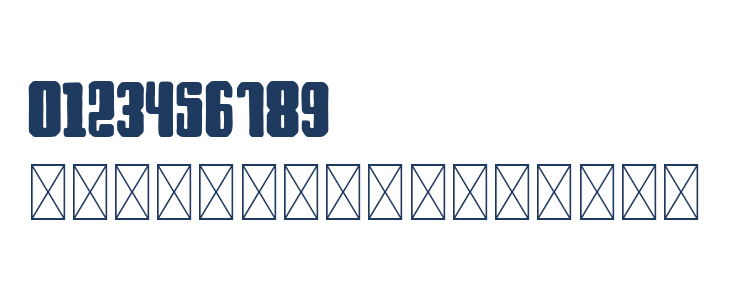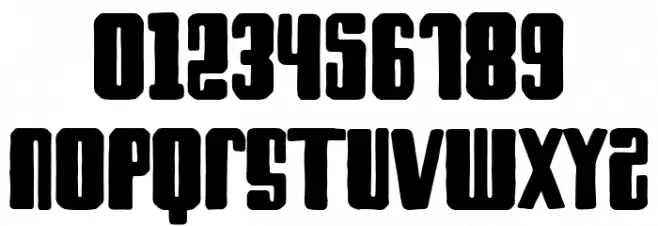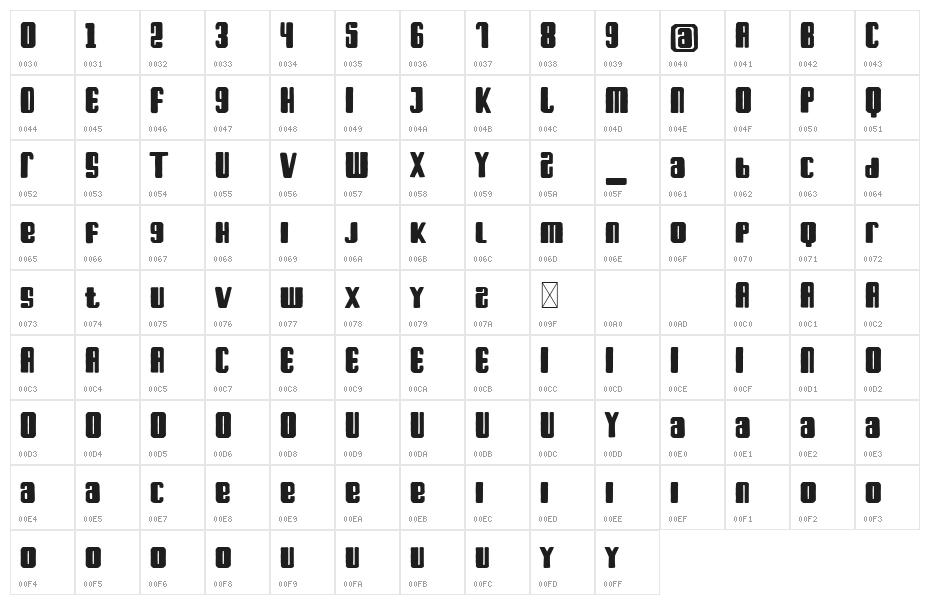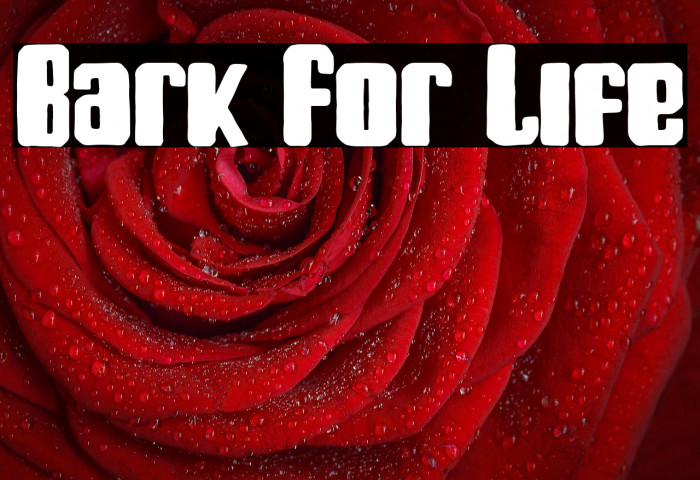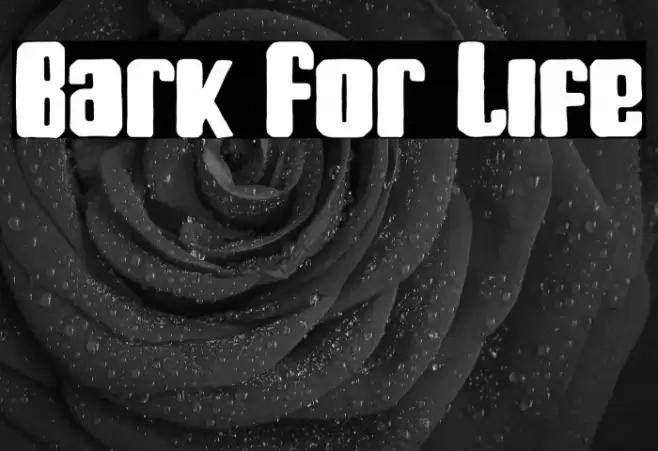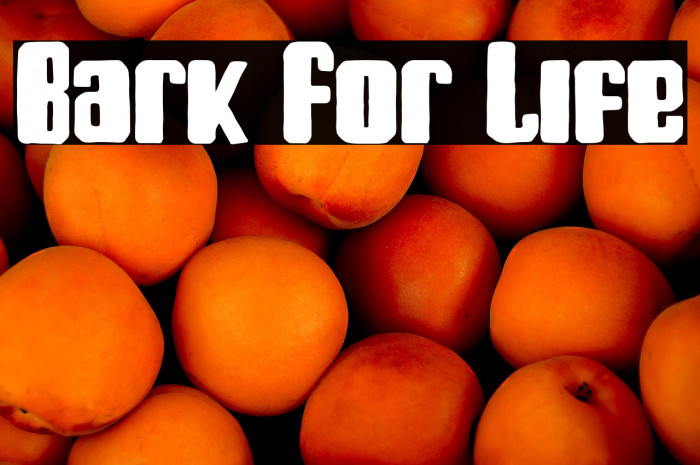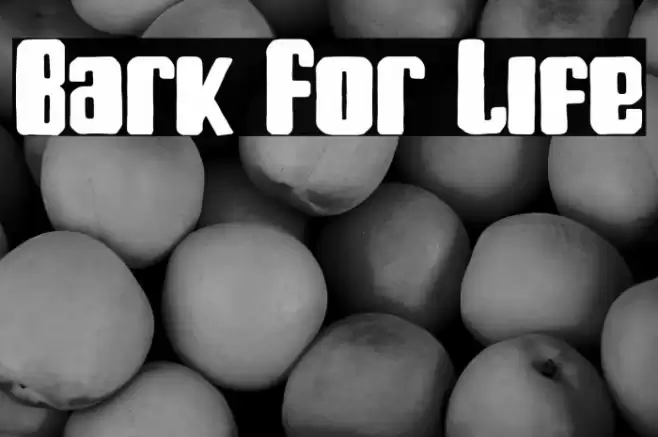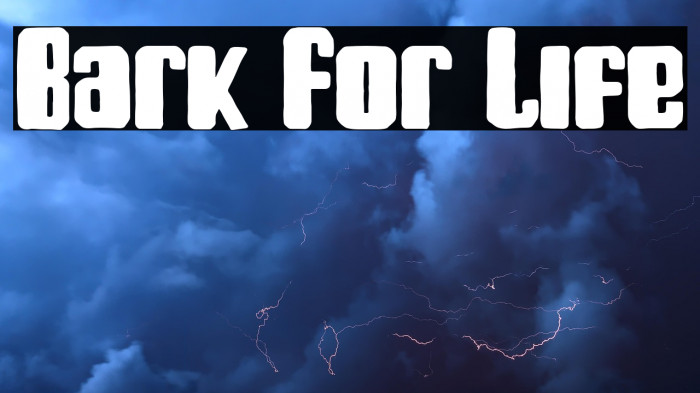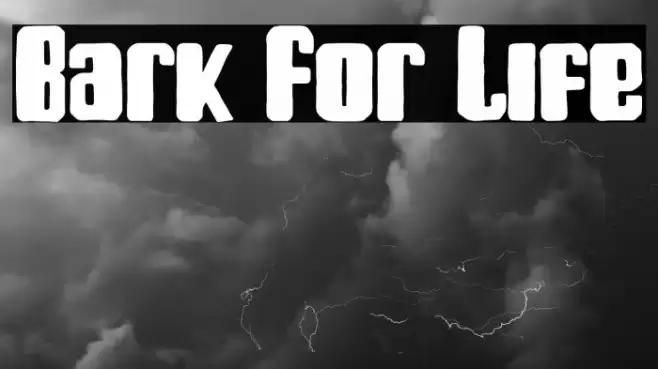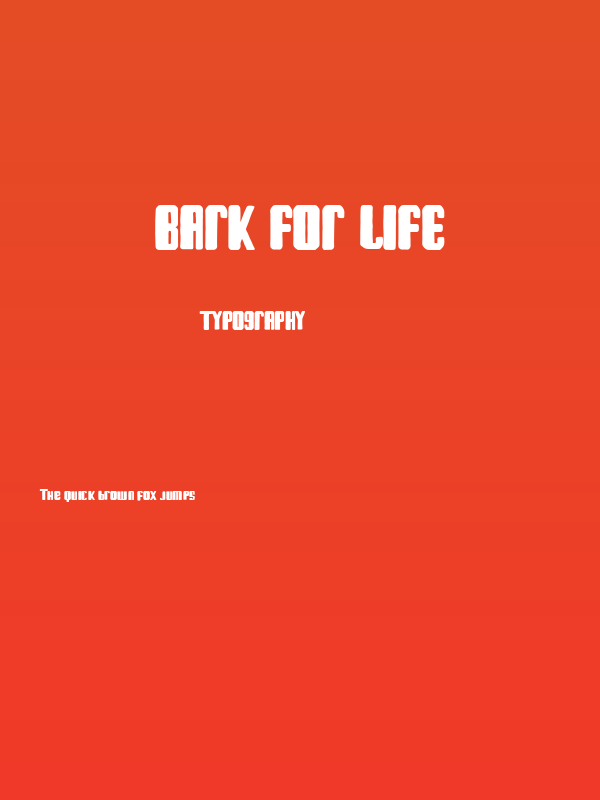
Bark For Life Font
This font features a bold and robust design with thick, block-like characters that convey a strong and impactful presence. The letters are uniformly wide, with rounded edges that soften the overall appearance, making it approachable yet assertive. The uppercase and lowercase letters maintain a consistent style, with a slight variation in height and width to distinguish them. The numbers are equally bold, ensuring they stand out clearly. The special characters are designed to match the overall aesthetic, providing a cohesive look across all glyphs. This font is perfect for projects that require a bold statement, such as posters, headlines, or branding materials.
| Proposed Projects | Ideal for posters, headlines, branding, and any project needing a strong visual impact. |